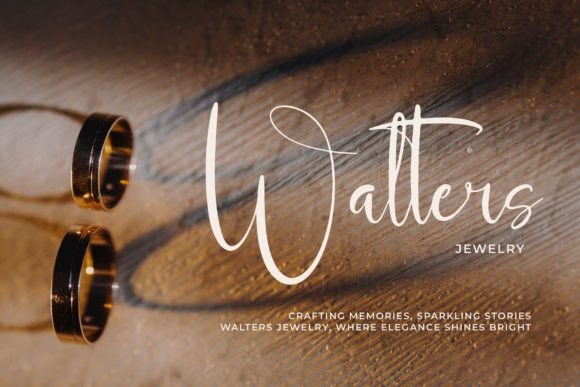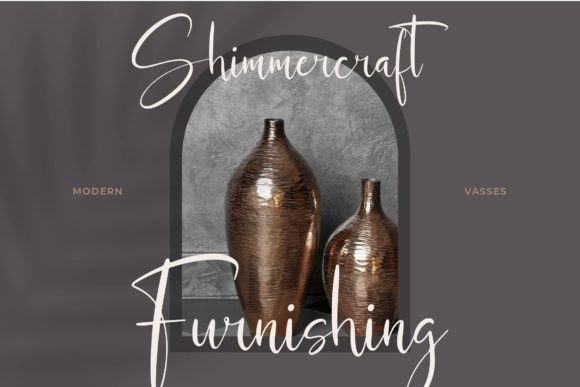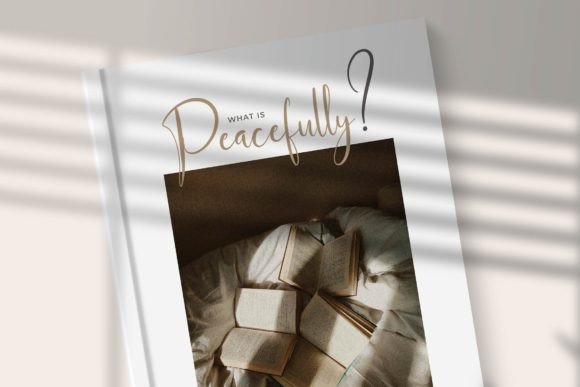
Introduction to Metthyws Font
Metthyws is a stylish and modern script font with smooth, flowing letters.
It looks elegant and is perfect for designing things like logos, invitations, or greeting cards The font feels classy and adds a personal, handwritten touch to any project.
Key Features of Metthyws Font
Why Choose Metthyws Font?
Metthyws Font offers exceptional quality and versatility, making it a valuable addition to your design toolkit. Whether you’re creating for personal projects or commercial use, Metthyws Font delivers professional results.